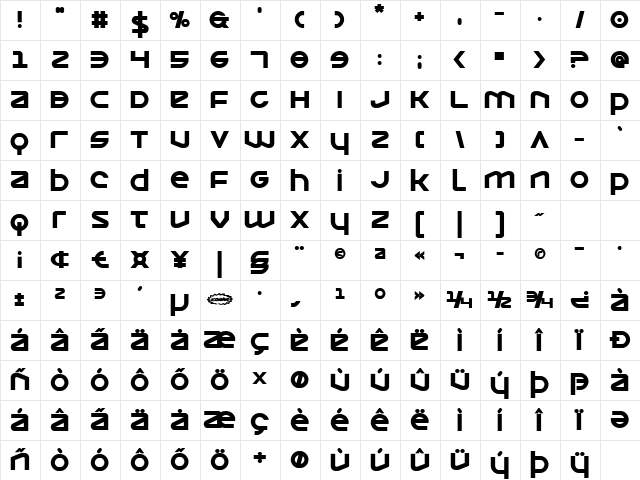
Opilio Bold is a composed and adaptable typeface that performs quietly and consistently across a wide range of design contexts. Its bold stroke weight gives it real presence on the page.